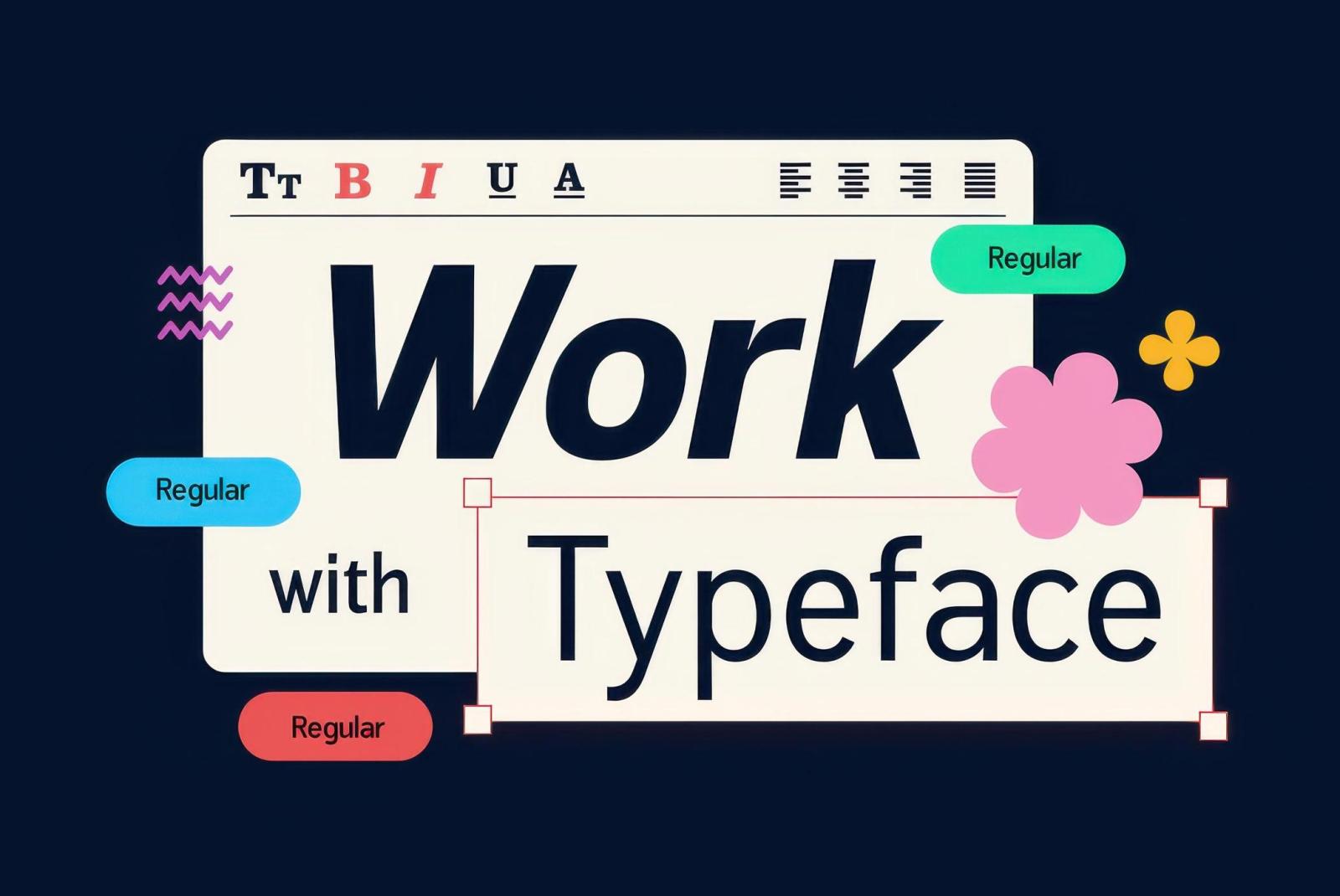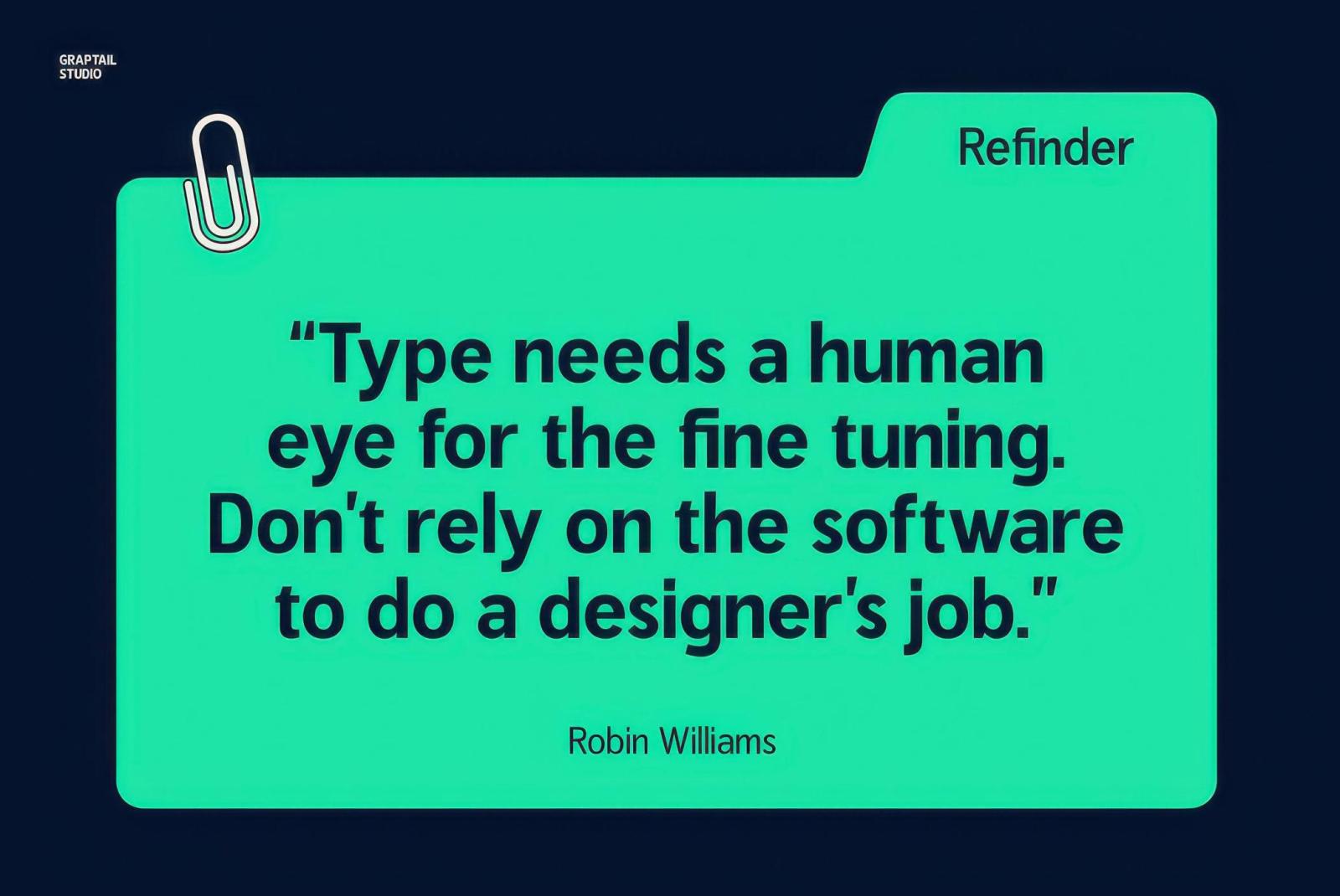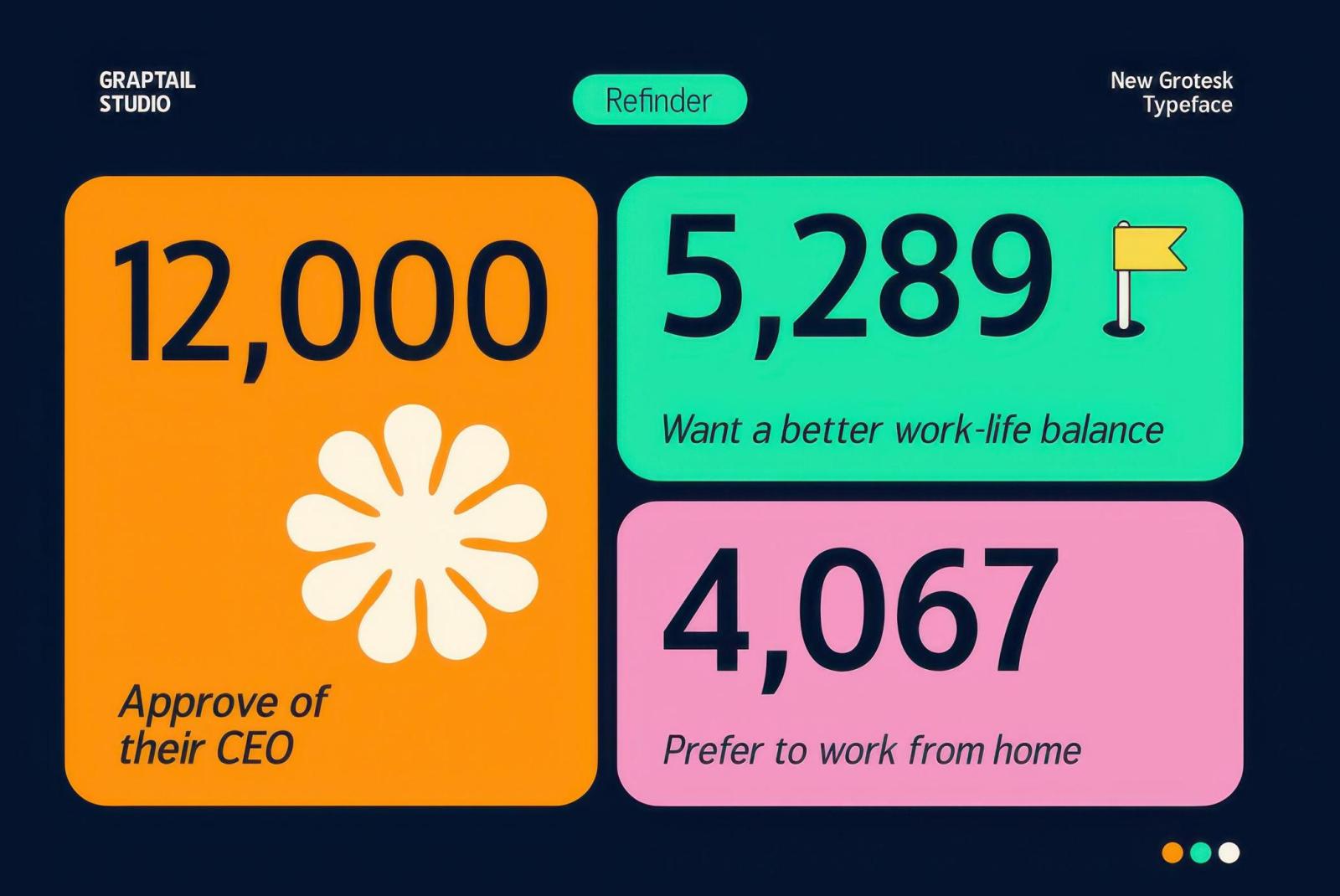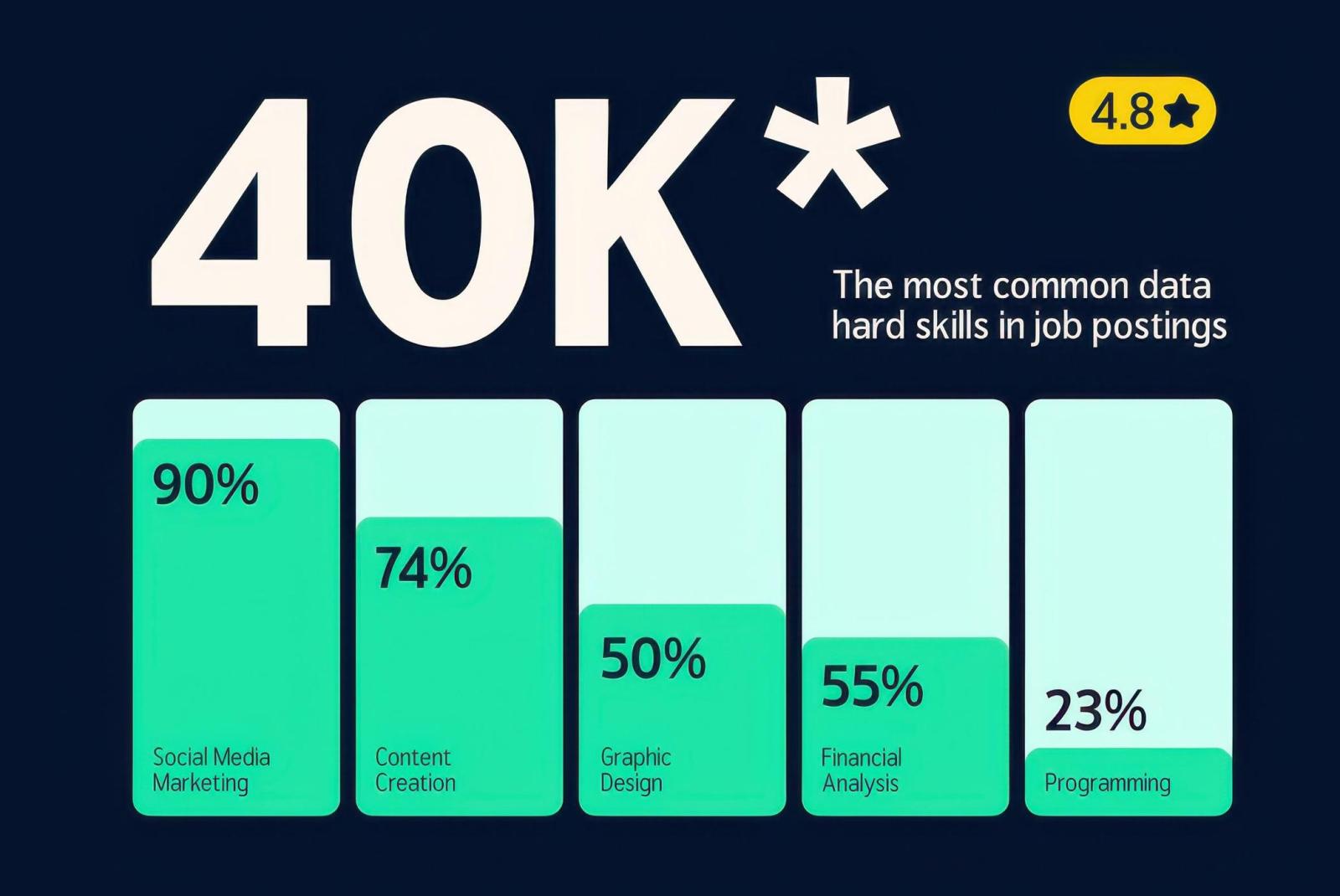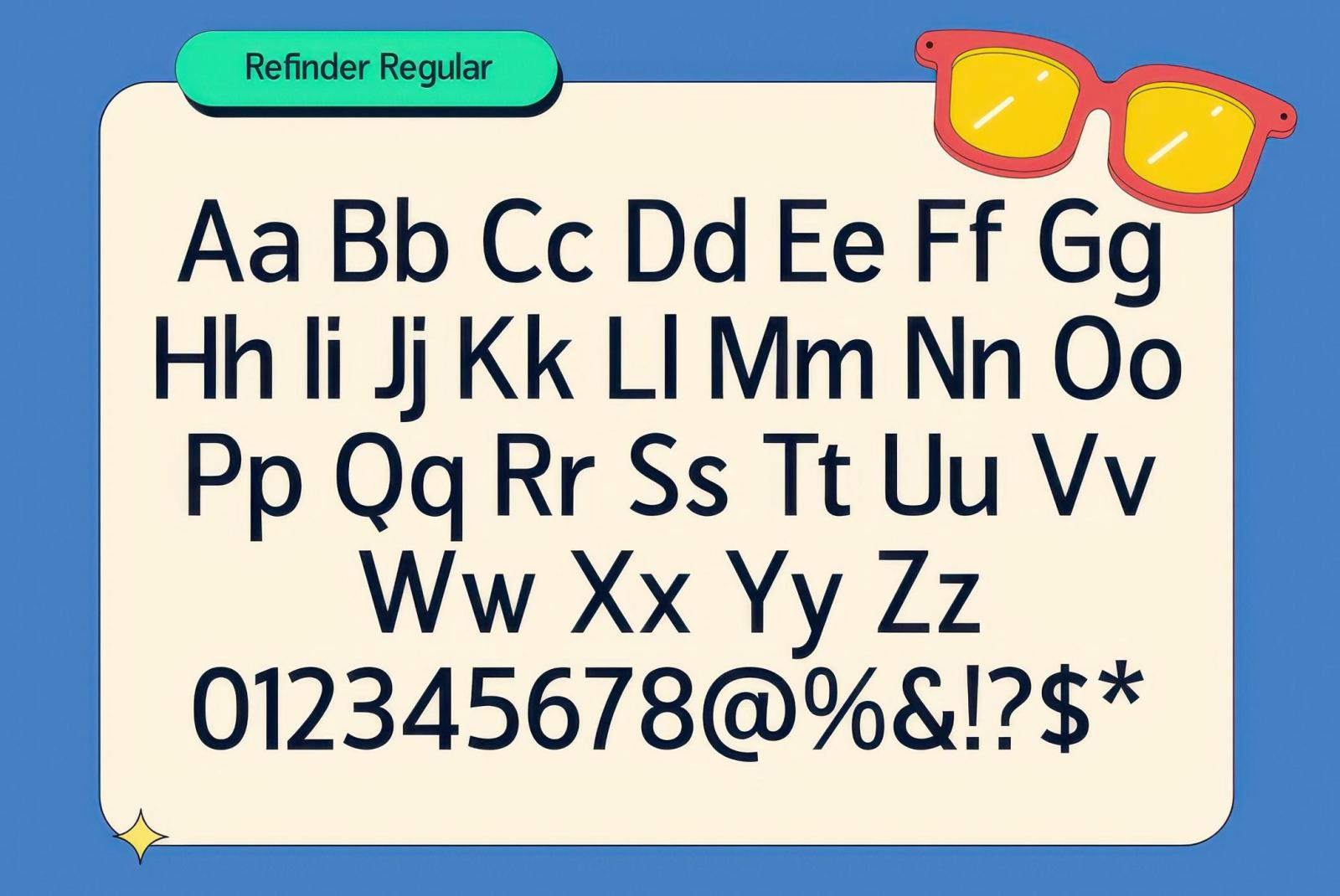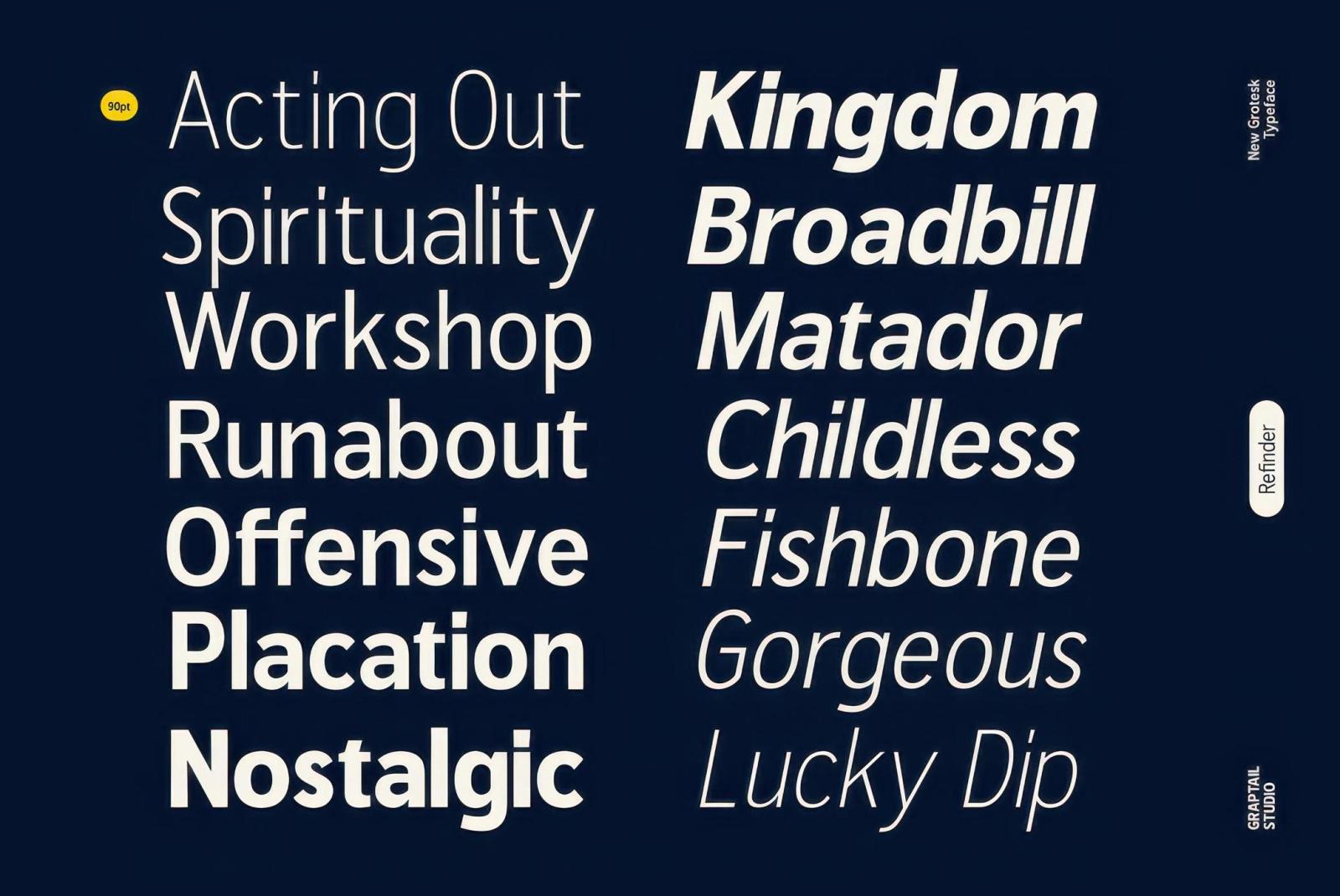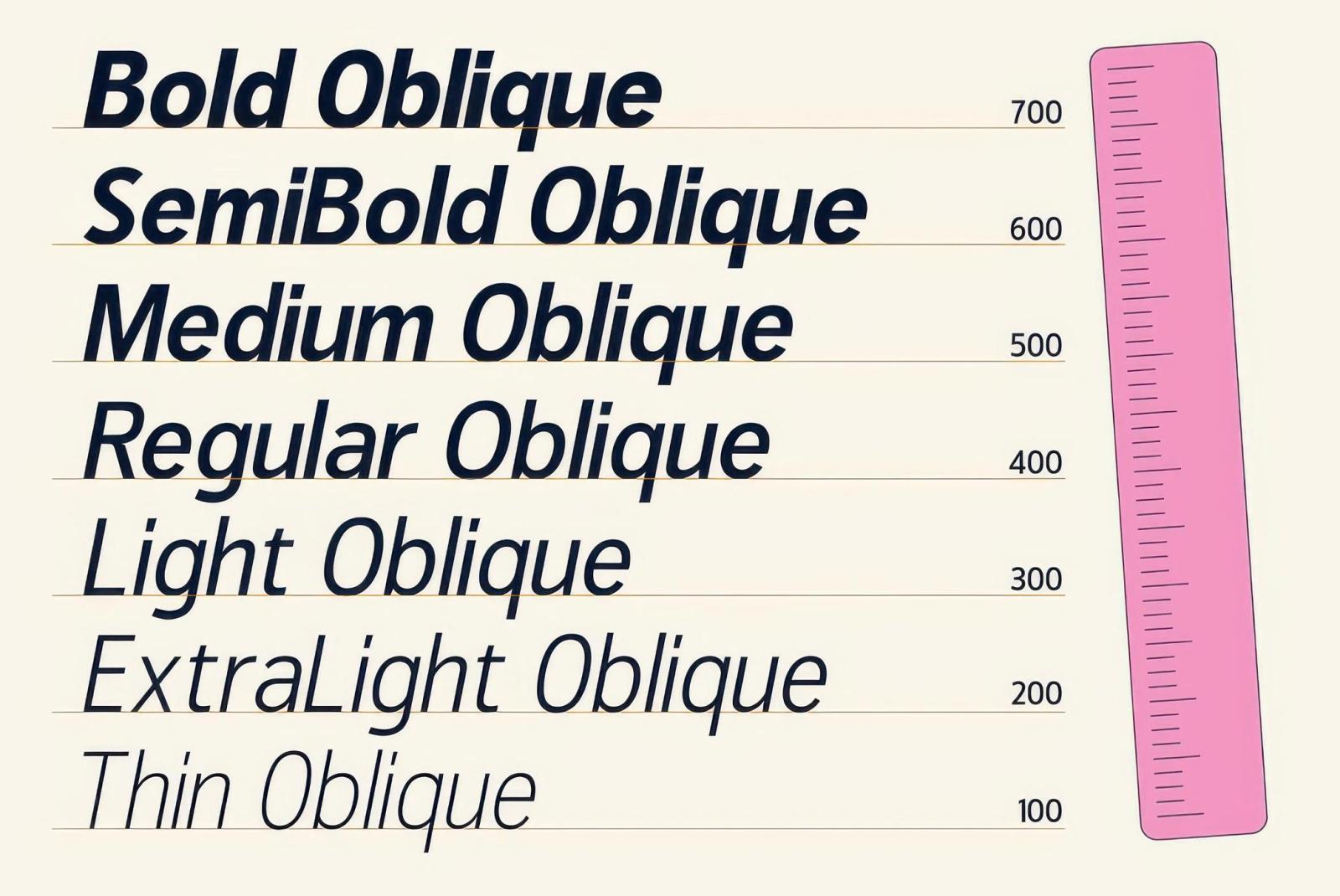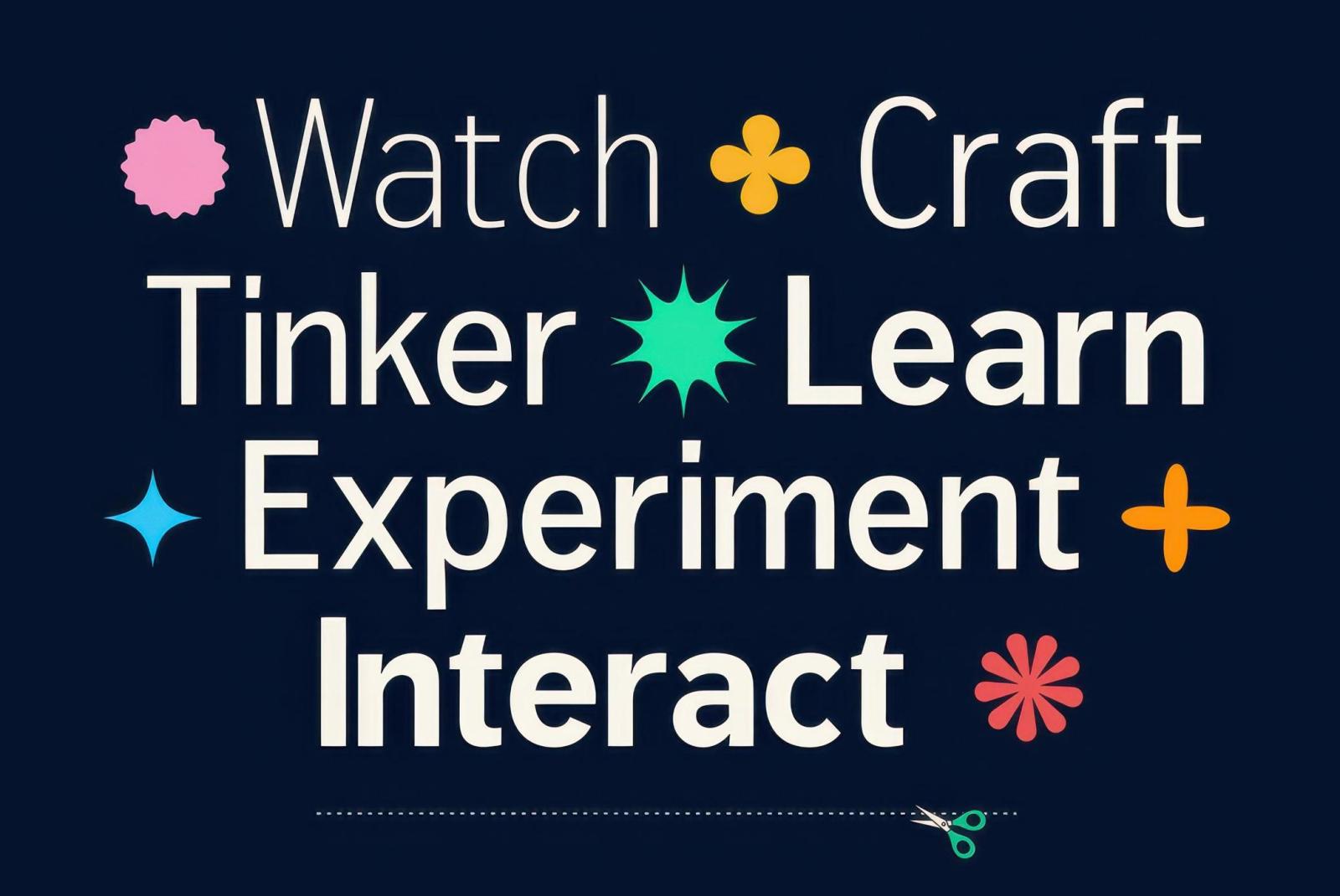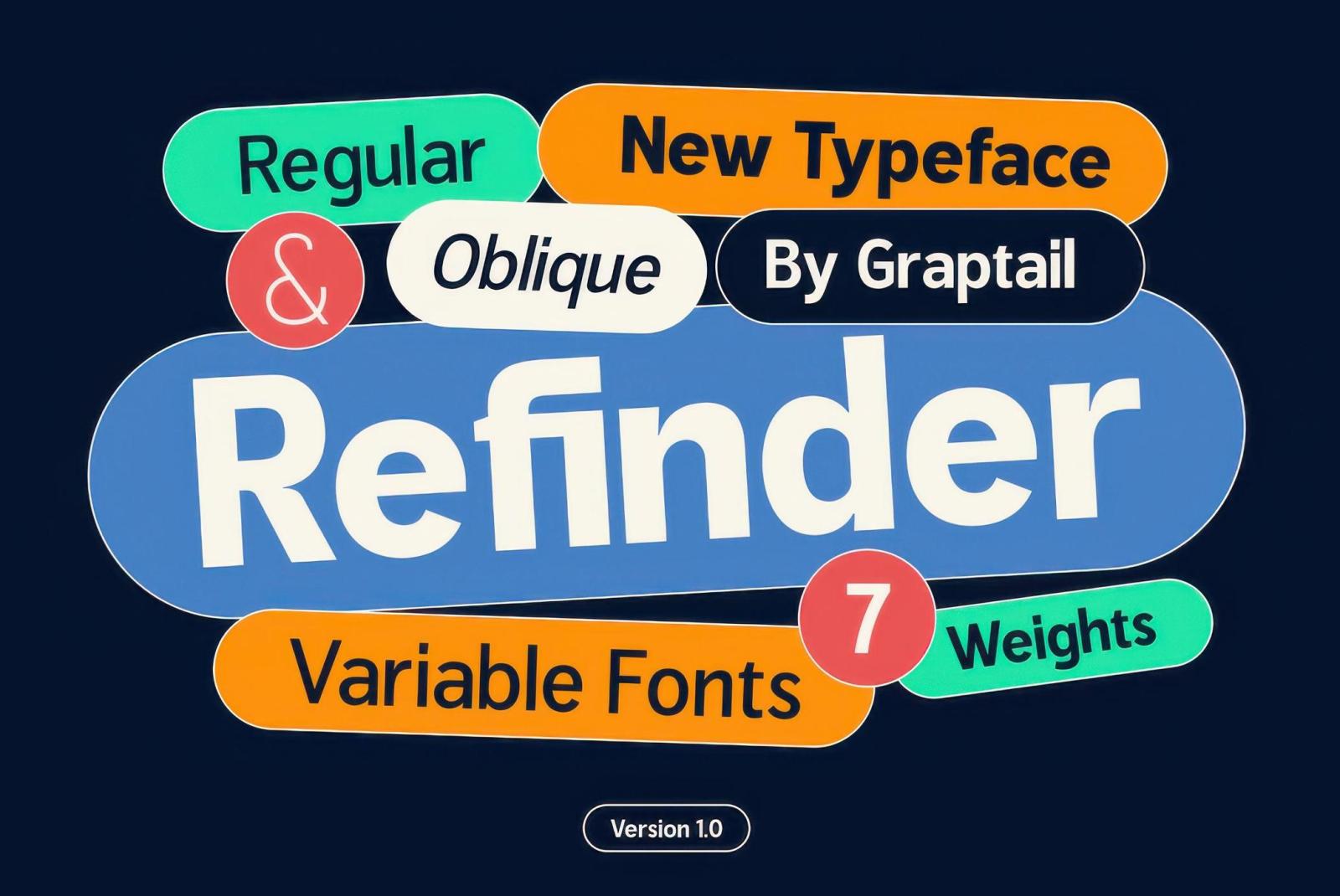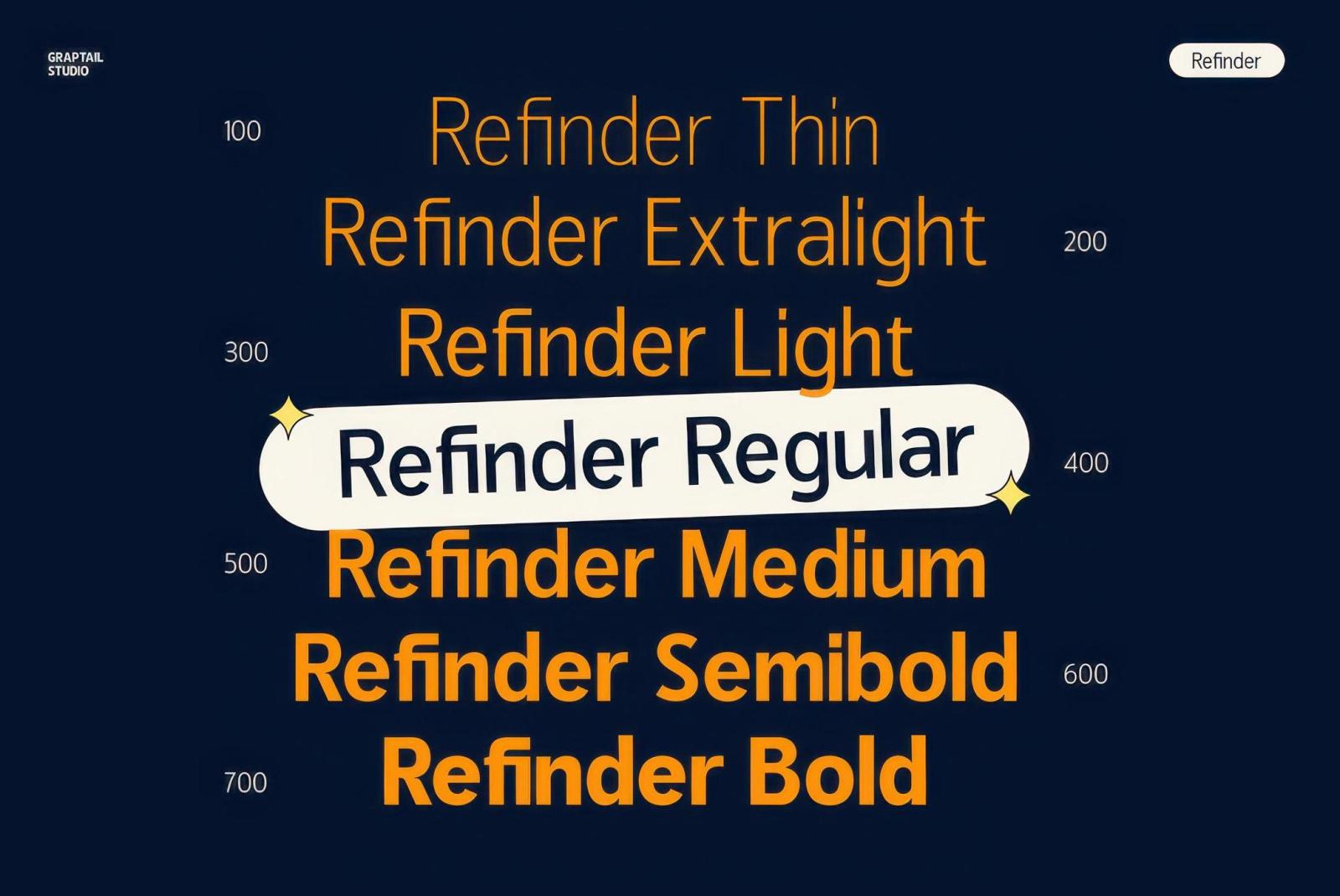
Refinder — New Grotesk Typeface
How many times have you wished for that elusive perfect font that can do everything except make your coffee? Well, it turns out this is not so elusive after all. Meet the Refinder, your one-stop typeface that’ll save any project.
You need weights for every nuance in a dashboard or crafting a magazine layout, but fonts aren’t pulling their weight. Now you can forget these situations. With 7 weights ranging from thin to bold and 2 sleek styles (regular and oblique) , Refinder brings versatility to the ultimate heights. Aside from the standard set of upper case, lower case letters, numerals, and punctuation , this font is loaded with alternate characters and ligatures , adding dynamics to the line. Our favorite one is “f” hugging “i”. Because who doesn’t need a bit of typographic affection? This font is just perfect for everything — seriously. Logos, wordmarks, short texts, long texts, secret love letters, ransom notes (we’re not judging). Its modern sans-serif vibe keeps things fresh.